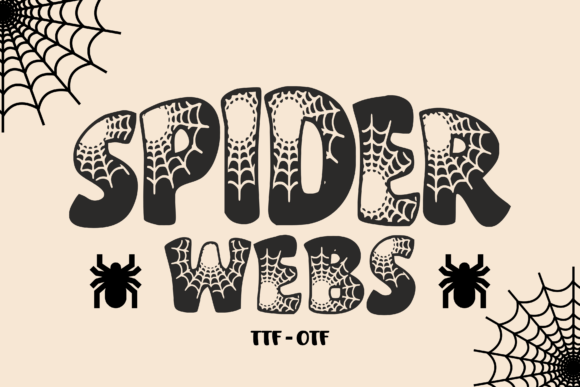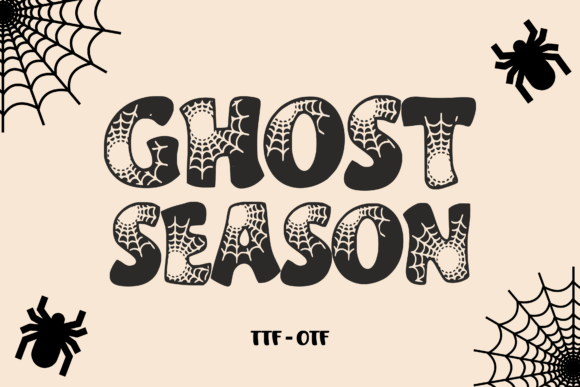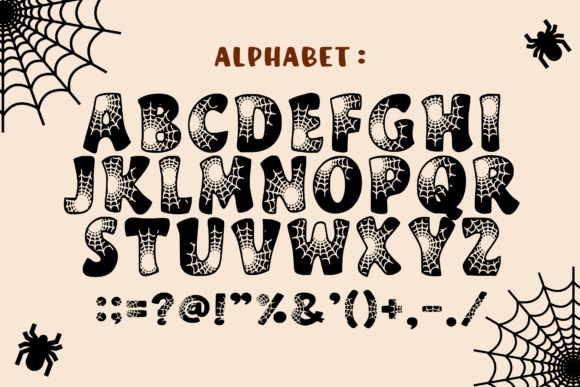
Spider Webs Font
Introducing Spider webs – a charming and spooky decorative font that will add a playful touch to designs aimed at children. Enhance the charm of your creations – be it unique t-shirt prints, adorable baby clothes, nursery decor, charming digital designs, fun cards and more. This font combines creativity and fun into a font that transforms your designs into works of art! Feel the magic it brings, injecting life and joy into every design it touches. Embrace the extraordinary; explore the wonders of the Spider webs font!